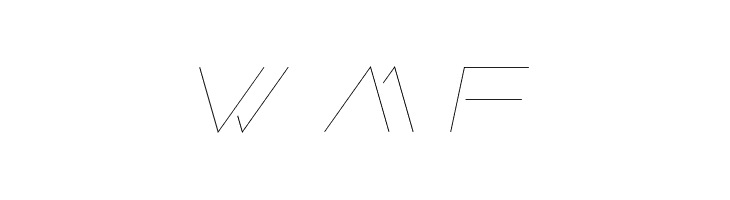
A sleek, modern italic font with a futuristic and minimalist design.
A sleek, modern font with geometric elements and a futuristic feel.
A bold, distressed brush-style font with a dynamic and rugged appearance.
A bold, distressed brush script font with a dynamic and textured appearance.
A bold, edgy font with jagged, brush-like strokes and a graffiti-inspired style.
A bold, distressed font with a grunge texture for impactful designs.
A bold, vintage-inspired serif font with high contrast and strong serifs.
A bold, distressed font with a vintage, grunge style.
A bold, geometric font with dynamic striped patterns for a modern look.
A bold, geometric font with unique circular cutouts and a uniform appearance.
Recent favorites include Faxine Sky Italic, Faxine Sky Bold, Vary Sharky Regular, VarySharky-Regular and Pack of Wolves. They balance clarity and personality, working well for tech brands, editorial layouts, and social visuals.